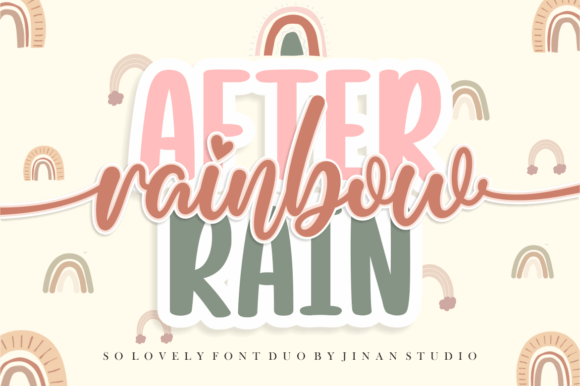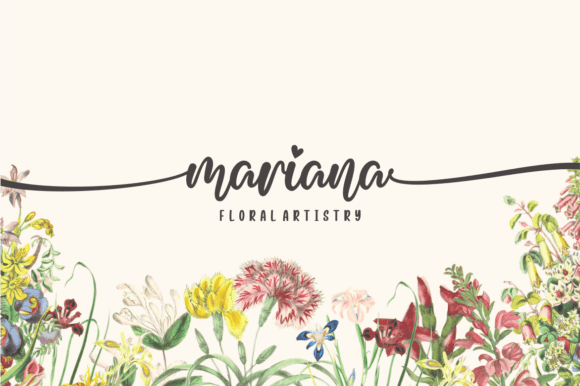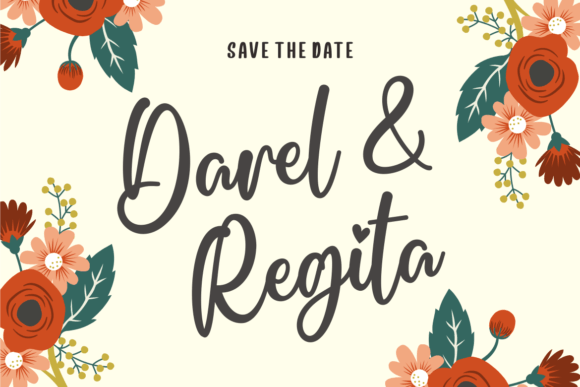
Rainbow After Rain Font
About the Rainbow After Rain Font
The Rainbow After Rain Font offers a perfect balance of form and function for your design needs. Rainbow After Rain Duo is a stylish and delicate duo font (script and sans serif) suitable for a wide spectrum of applications. From greeting cards to headlines, this font will guarantee a romantic touch to each of your creations! Rainbow After Rain Duo is PUA encoded which means you can access all of the glyphs and swashes with ease.
Rainbow After Rain’s script is ideal for headlines, short text blocks, and logos requiring a touch of elegance and romanticism. The sans-serif counterpart works well for supporting text in these applications, maintaining visual harmony. However, avoid using the script for body copy or lengthy paragraphs; its delicate forms reduce readability at smaller sizes. The sans-serif is better suited for short to medium length text blocks but may not be suitable for user interfaces requiring high legibility.
Its core personality is sophisticated yet approachable. Brands focused on weddings, fashion, beauty, or artisanal products will find it particularly fitting. The font’s inherent romanticism works well with delicate imagery and pastel color palettes.
Rainbow After Rain Font Usage Examples
Rainbow After Rain Font Example